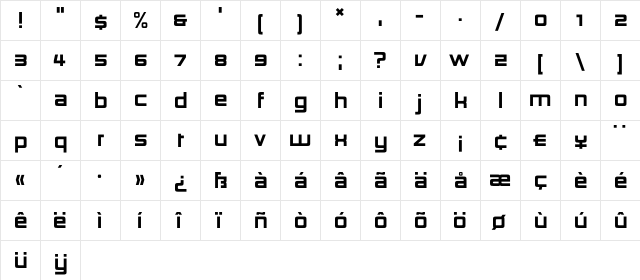
Ballmer ArchiType
Design Context for Ballmer Typeface
Ballmer offers clean, dependable letterforms without strong stylistic allegiance, making it a practical choice for designers who need flexibility.
Pro Tip: Use Ballmer in both headline and body roles to test its range before committing to a single application.